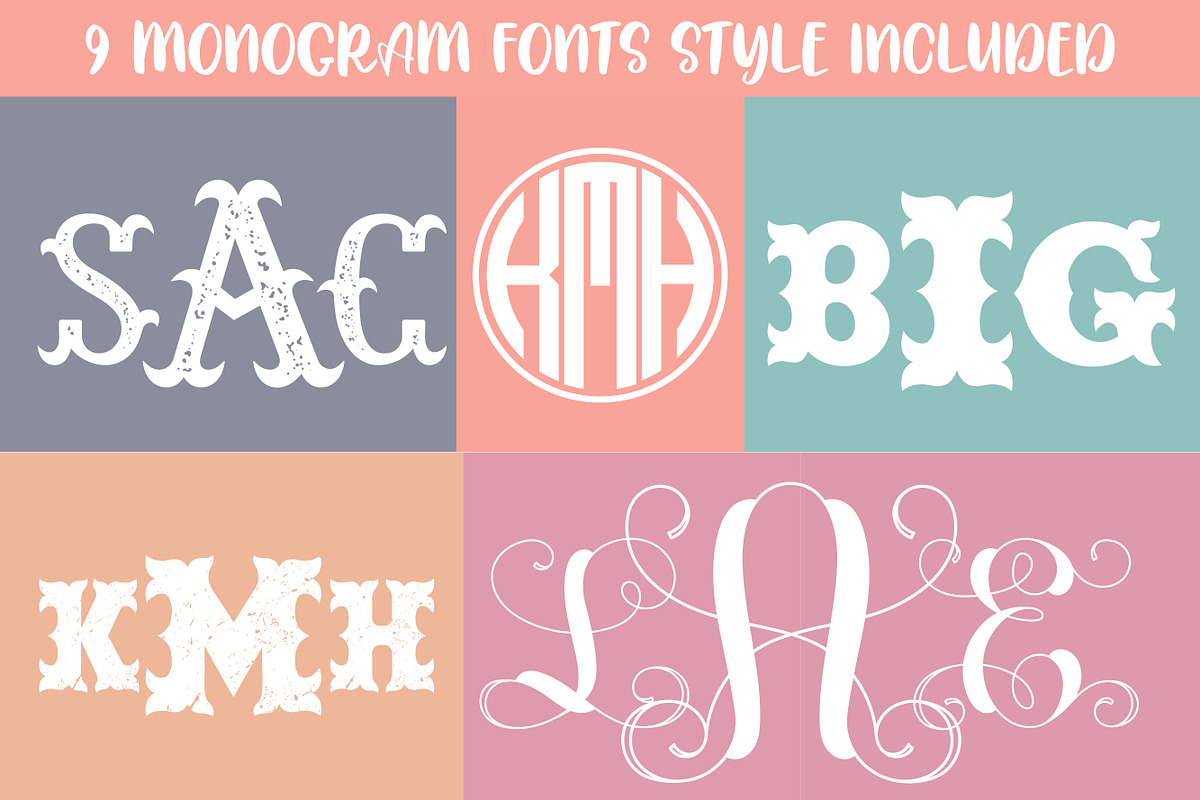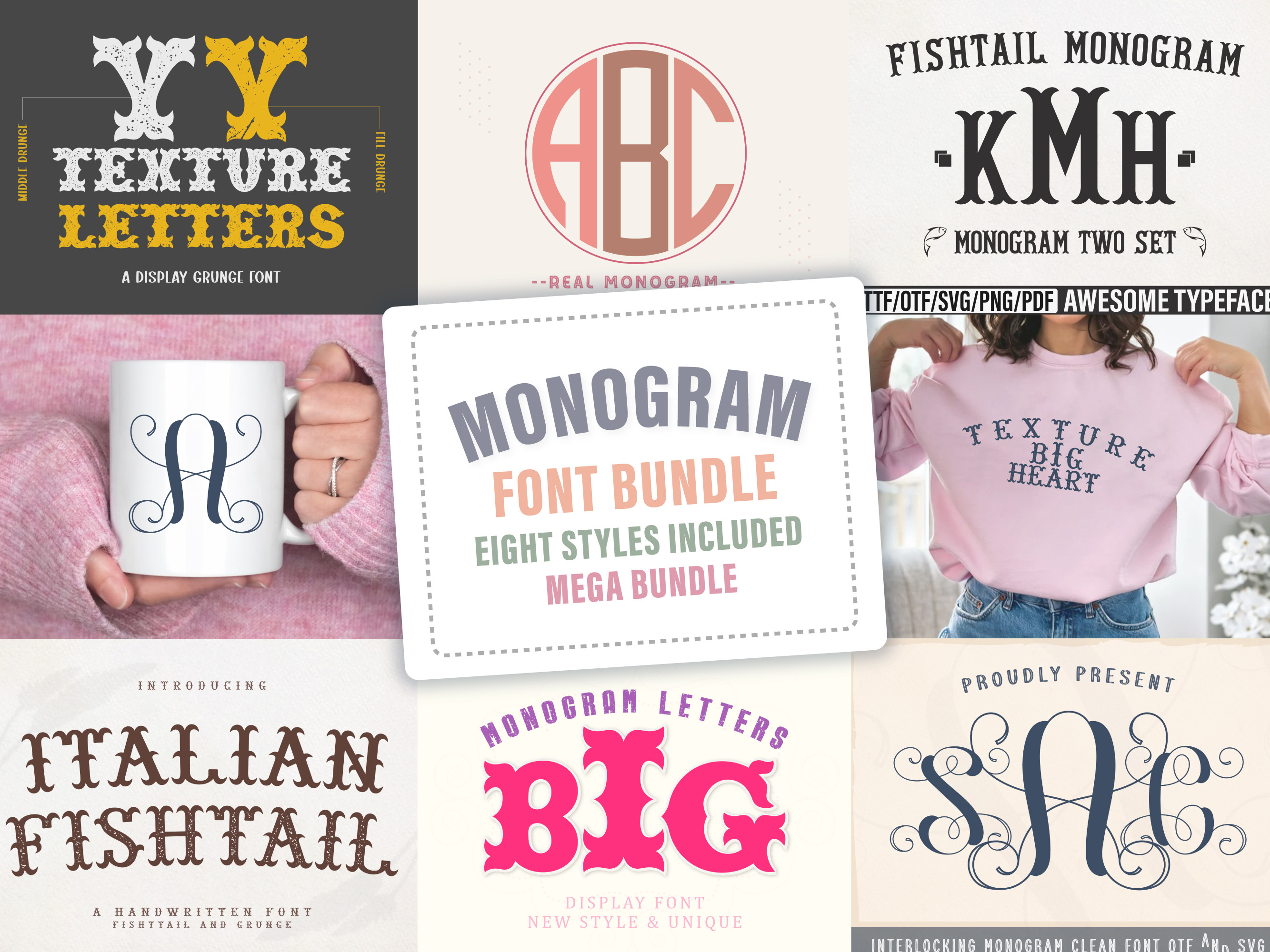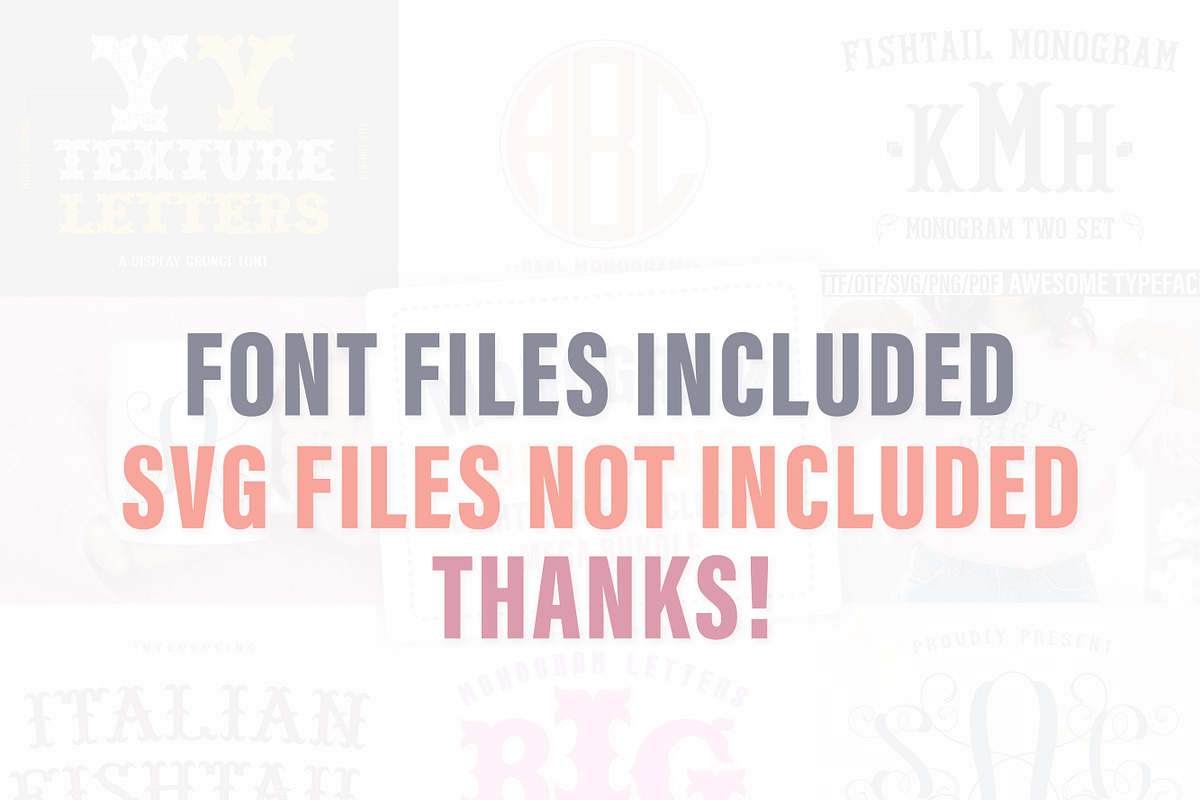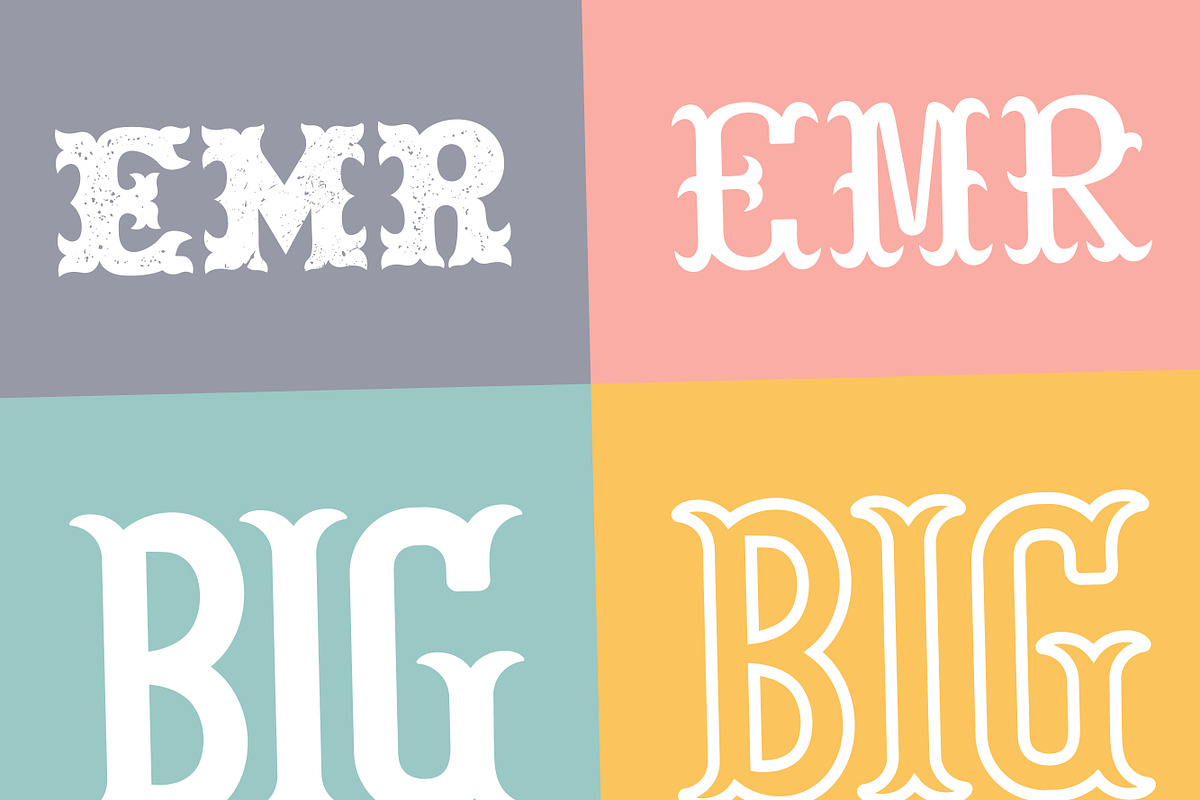
Monogram Font Bundle
Monogram Bundle is a stylish and eye-catching mega font bundle that is perfect for various creative projects. This bundle adds a touch of elegance and uniqueness to any design or craft idea.
Included Fonts -
- FishtailMonogram
- FishtailOutline
- InterlockingVine
- ItalianFishtail
- ItalianFishtail-Grunge
- MonogramLetters
- Real Monogram
- TextureLetters